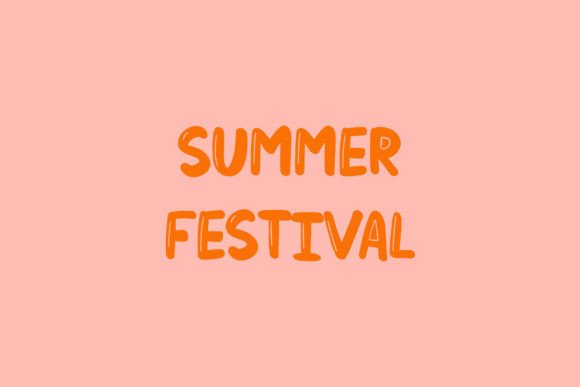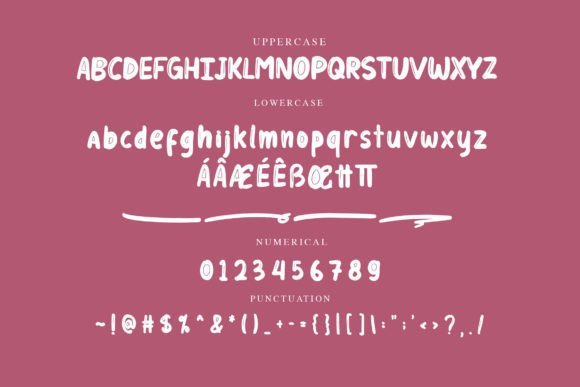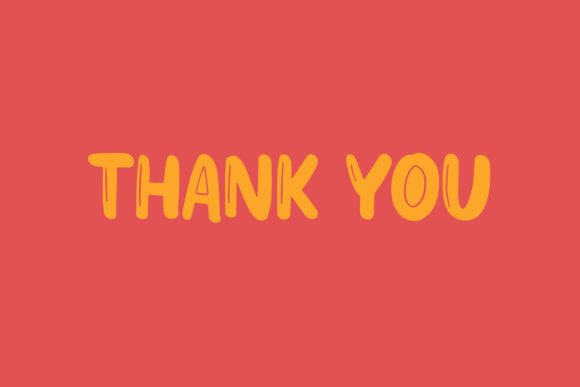
Moogee Font – Free Download
Introduction to Moogee Font
Enchant audiences with the whimsical allure of MOOGEE, an irresistibly playful handwritten font bathed in a delightful cartoon style.
Born from one-of-a-kind shapes, each character in this font injects a dash of charm into your graphics, enhancing their appeal up a notch Loading a dash of fun into every design, MOOGEE will surely become the standout character on your graphic stage.
Key Features of Moogee Font
Why Choose Moogee Font?
Moogee Font offers exceptional quality and versatility, making it a valuable addition to your design toolkit. Whether you’re creating for personal projects or commercial use, Moogee Font delivers professional results.